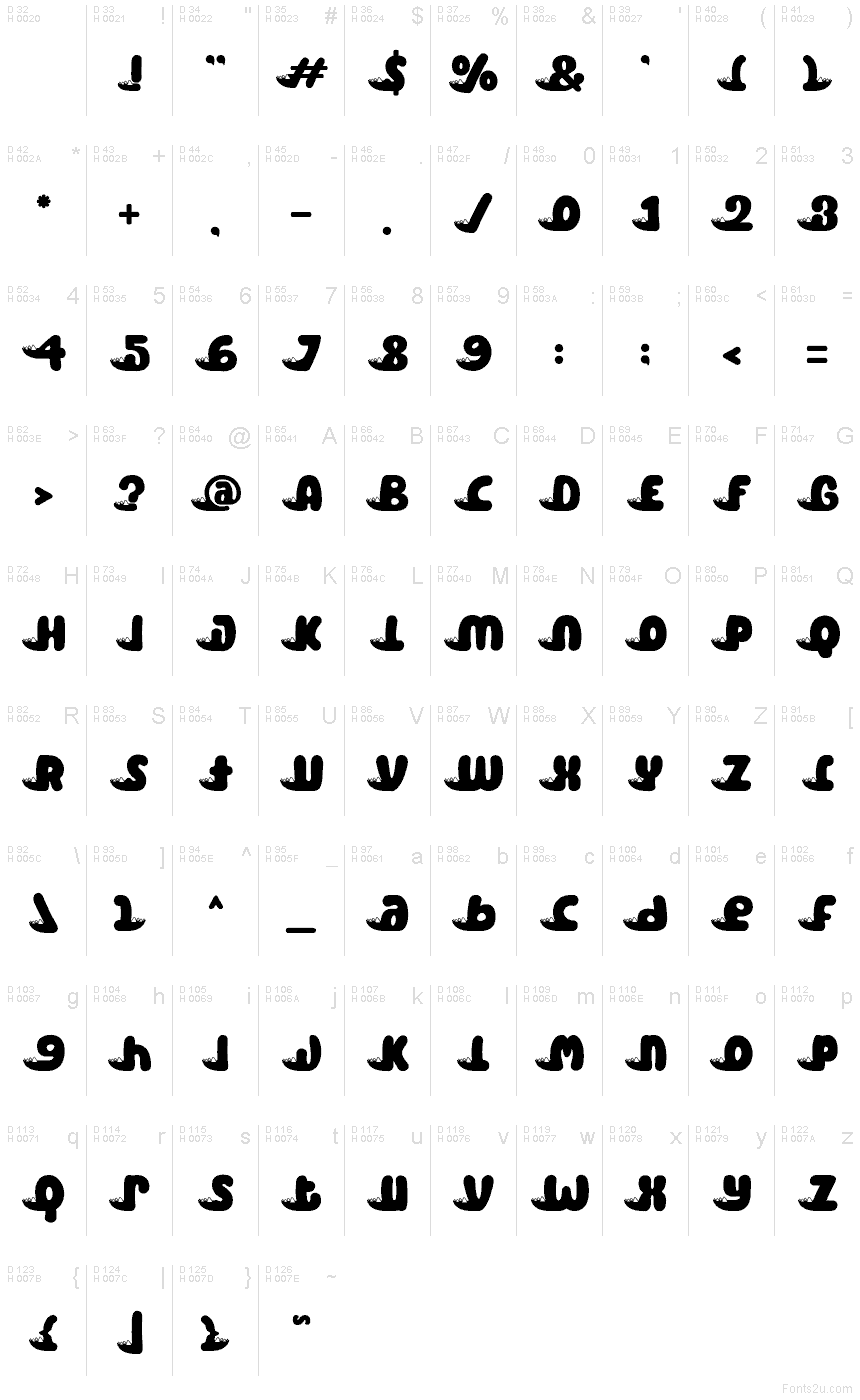
Monster Mash Monster 3
Monster Mash Monster 3 font by PutraCetol Studio is a bold and decorative display font inspired by retro designs. Its large, blocky letters are eye-catching and downright terrifying; it is the type of font that can make a strong statement with ease thanks to its curvy corners, rounded edges, remarkable readability, and quirky appearance.
The Halloween-themed font is perfect for posters, signage, logos, headlines, party invitations/postcards art covers, packaging boxes/bags/bottles design ideas greeting cards important presentations or making T-shirt designs. It can also be used in textbook covers or web/app pages. All this comes free of charge!